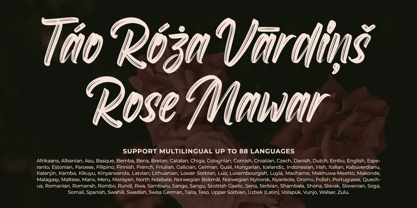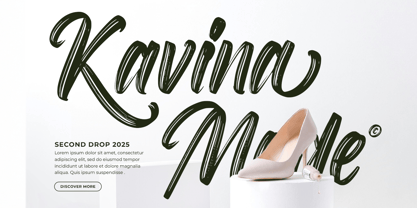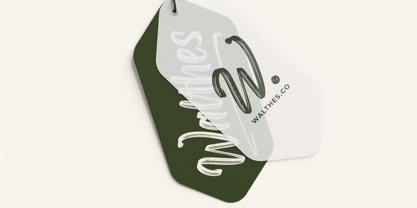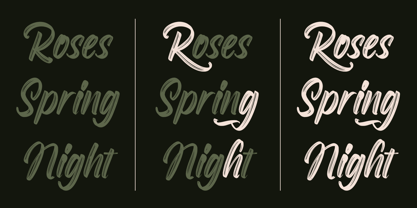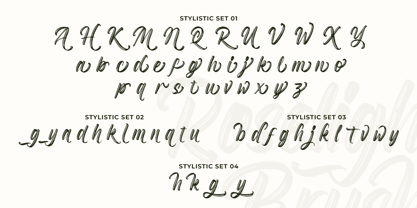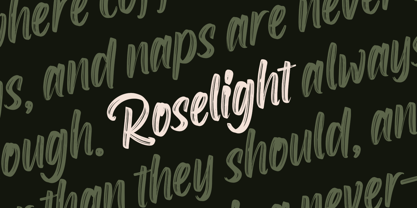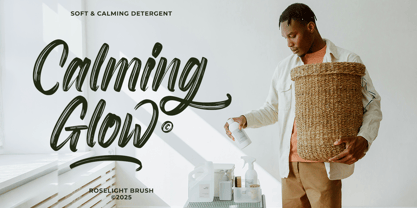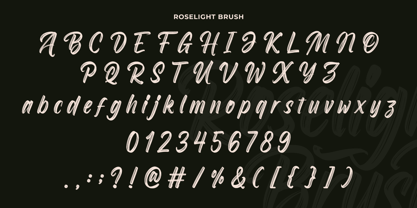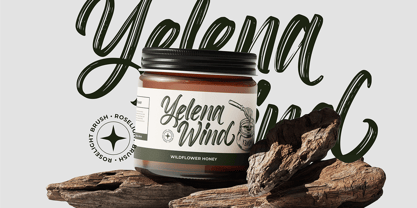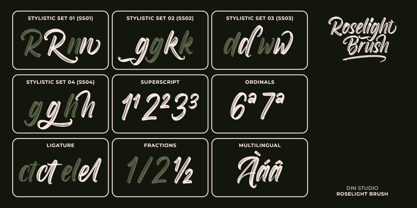
Roselight Brush
by Din Studio
The Roselight Brush Font Family was designed by Donis Miftahudin and published by Din Studio. Roselight Brush contains 2 styles and family package options.
Roselight Brush is a captivating brush-style font that blends elegance with strength. Designed with a fairly thick weight, its bold brush details create a dynamic and expressive look while maintaining a refined touch. The natural flow of each stroke adds an artistic feel. Roselight Brush is the ideal choice for those seeking a font that is both graceful and powerful. In addition, enjoy the features here.
Features:
• Stylistic Sets
• Ligatures
• Multilingual Supports
• Numerals and Punctuations